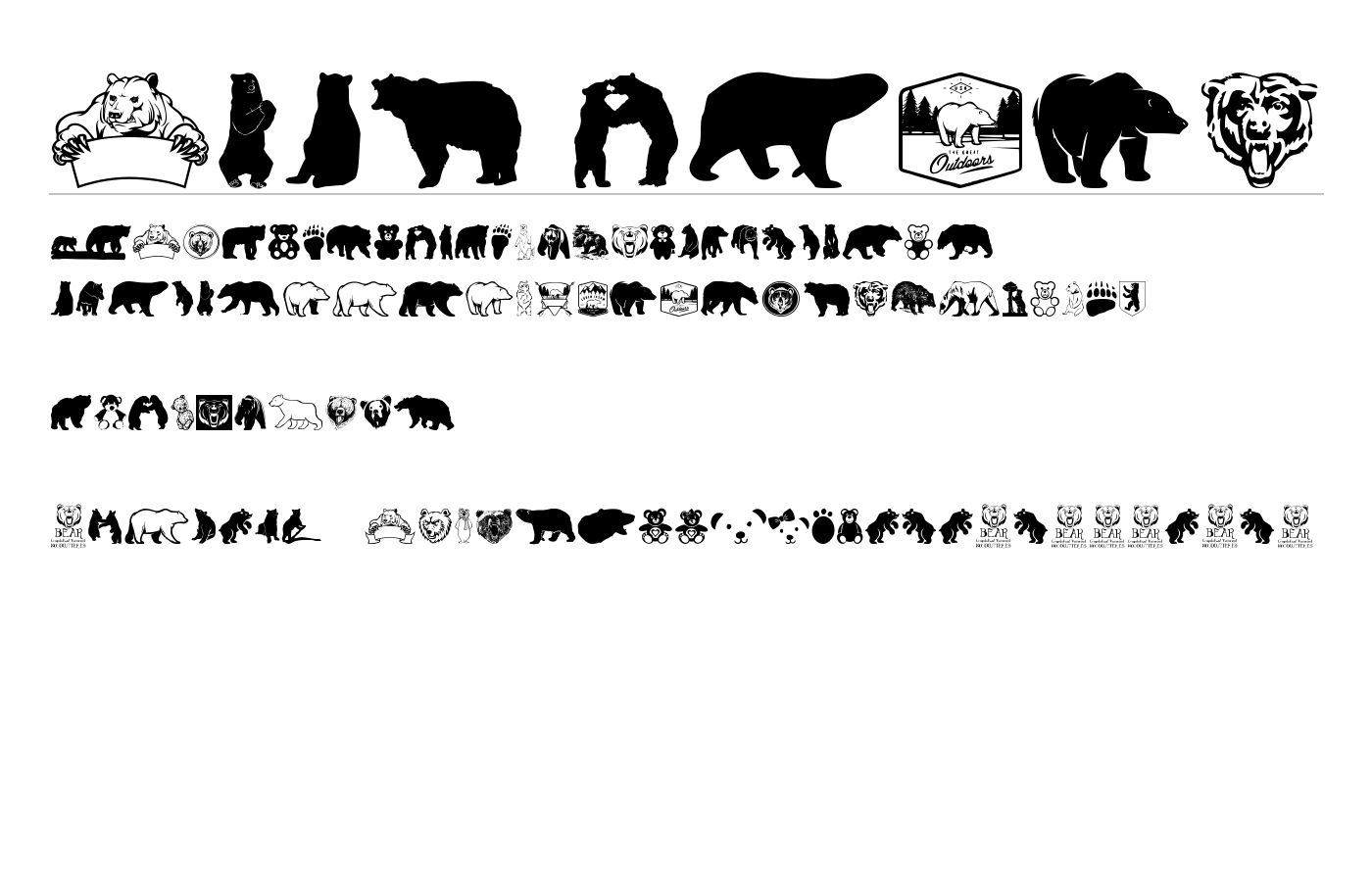
Bear Icons Font is a playful and versatile icon font featuring a variety of bear-themed silhouettes and detailed illustrations. Its bold, solid shapes range from simple bear outlines to intricate designs, making it perfect for outdoor branding, wildlife projects, and fun, nature-inspired logos or packaging. This font captures a friendly yet strong spirit, ideal for designs that want to combine charm and ruggedness with clear visual impact.
Bear Icons Font
About Bear Icons Font